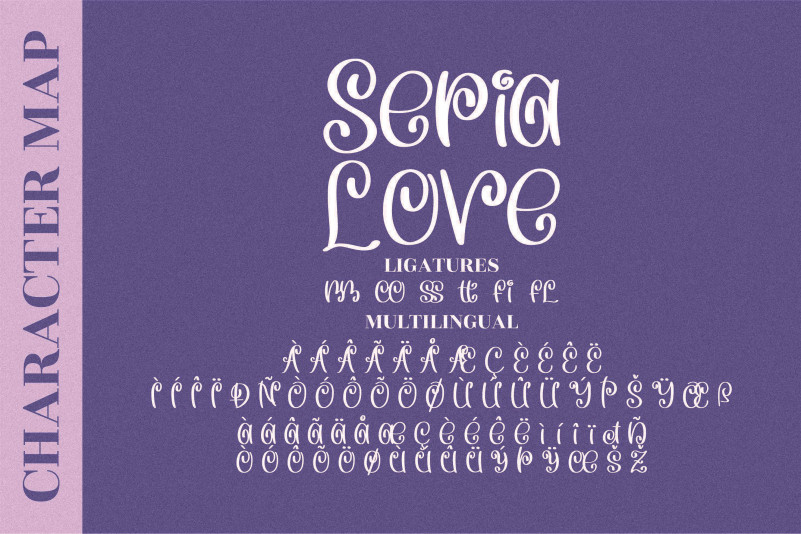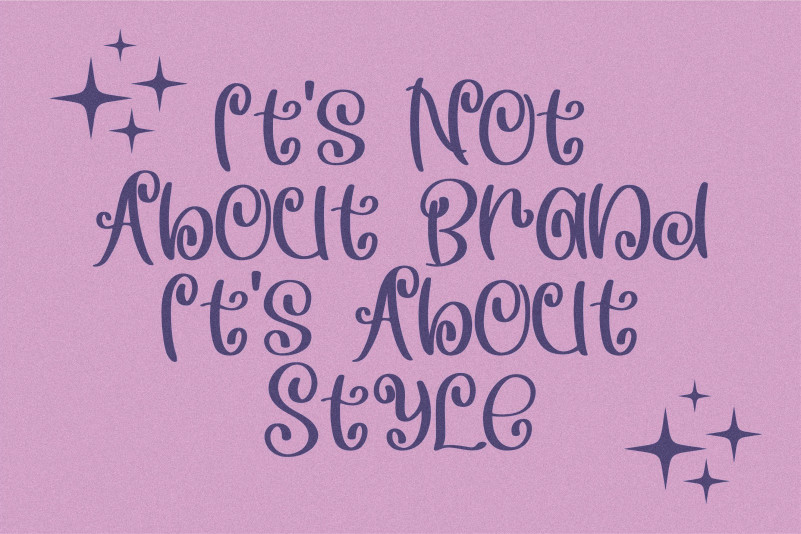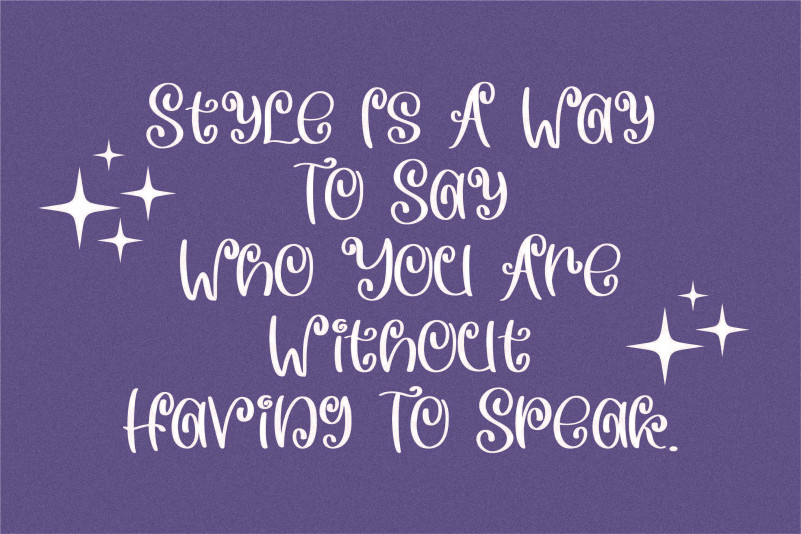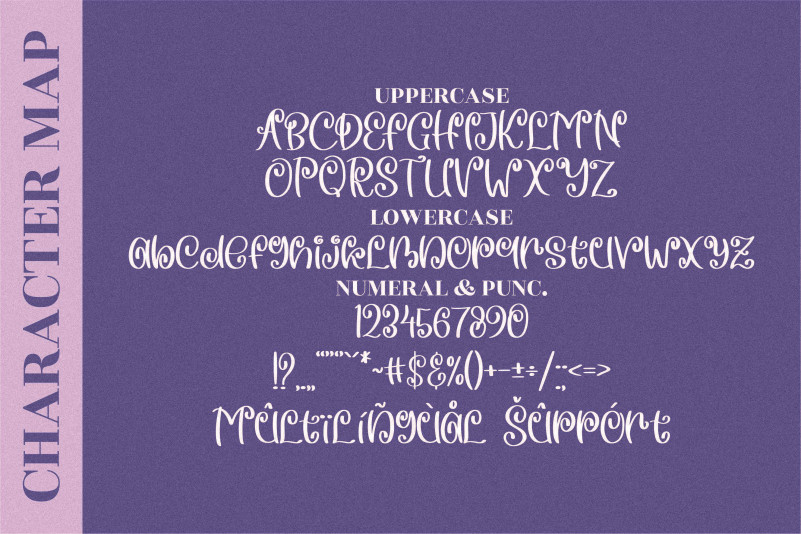
Sepia Love Font
Sepia Love Display Font
This is a quirky, whimsical and chic script font. Add it confidently to your favorite creations and let yourself be amazed by the outcome generated.